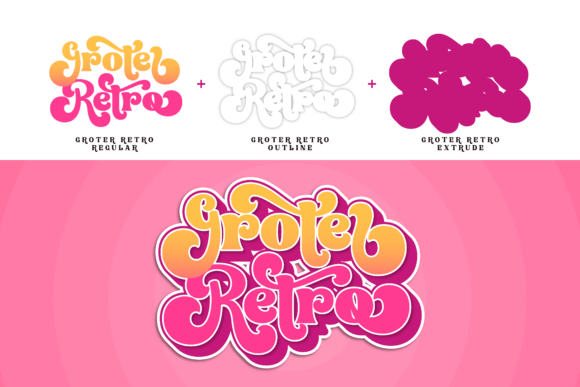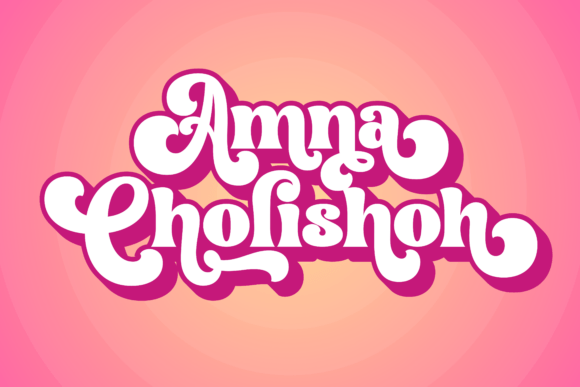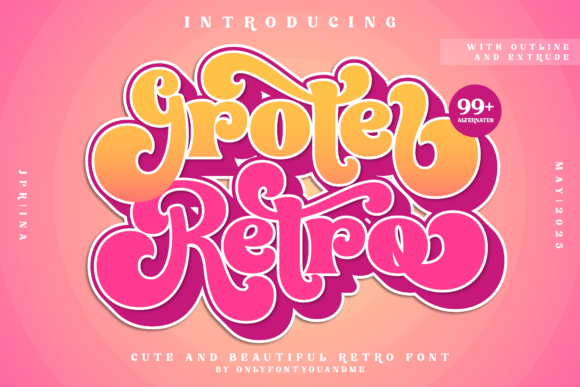
Groter Retro Font: Bold & Playful 70s Typography for Groovy Designs!
About the Groter Retro Font
The wait is over! The incredible Groter Retro Font is now available for your design toolkit. Groter Retro is a bold, retro-style script font with playful, bubbly letterforms and smooth, flowing curves. Inspired by 1970s design, it features exaggerated swashes and a fun, dynamic personality—perfect for vintage posters, music themes, or standout titles.
This font comes in a three-layer system: a vibrant Regular layer, a clean white Outline for contrast, and a bold Extrude that adds a 3D shadow effect. The layered setup makes it easy to create eye-catching, customizable designs with strong visual appeal.
Groter Retro Font Usage Examples